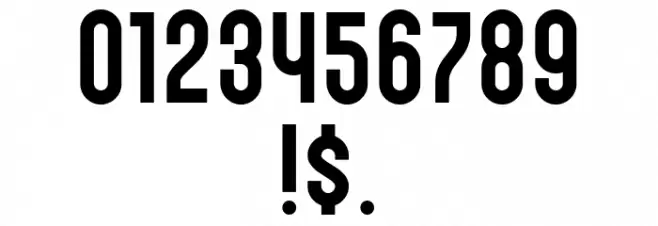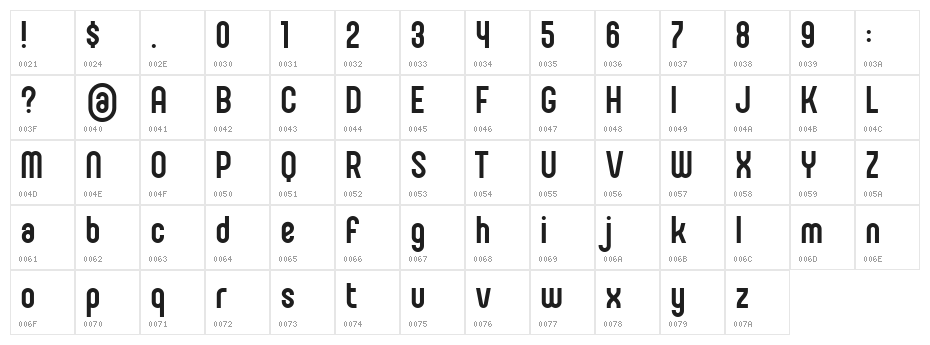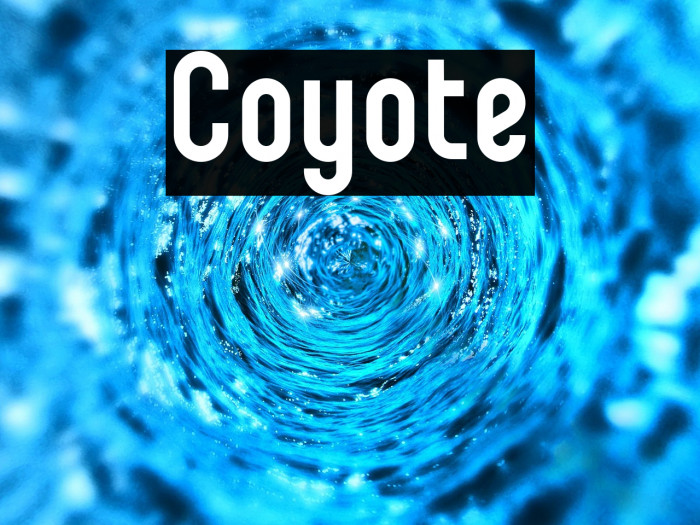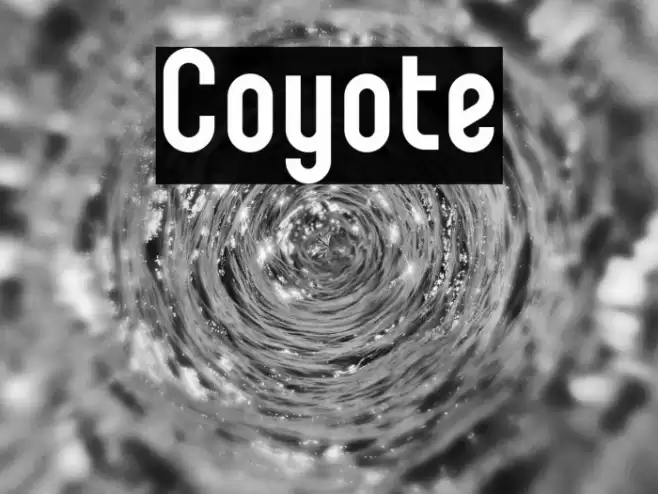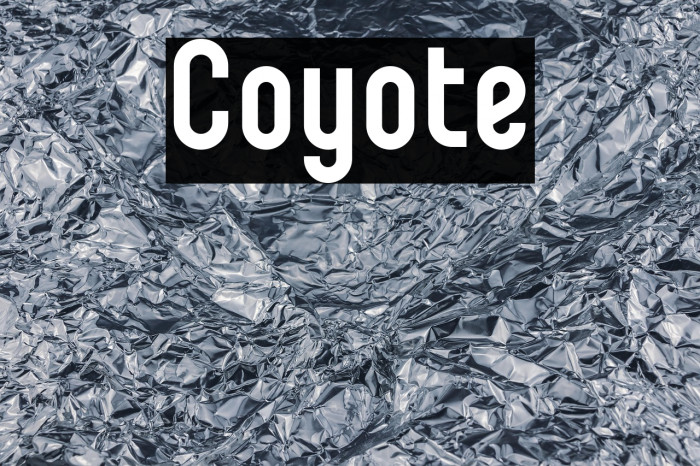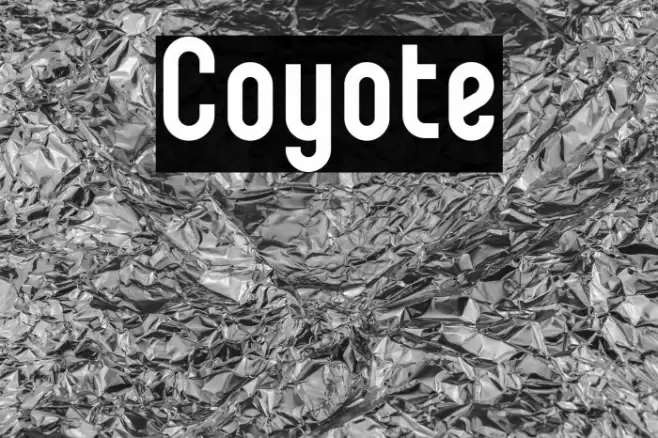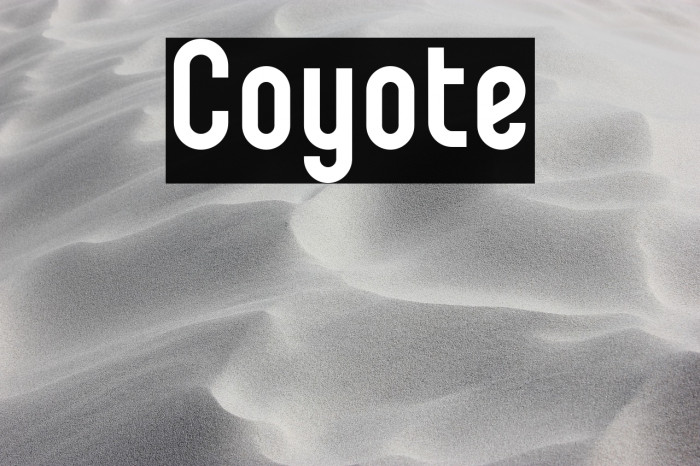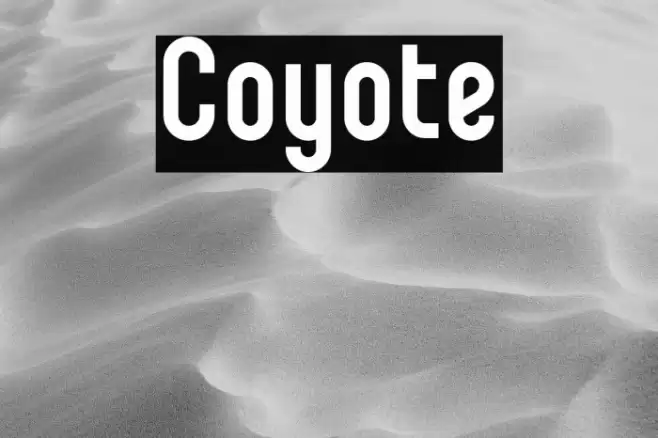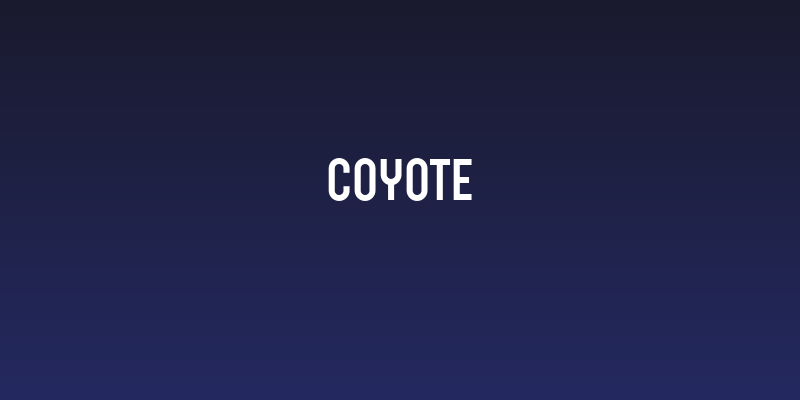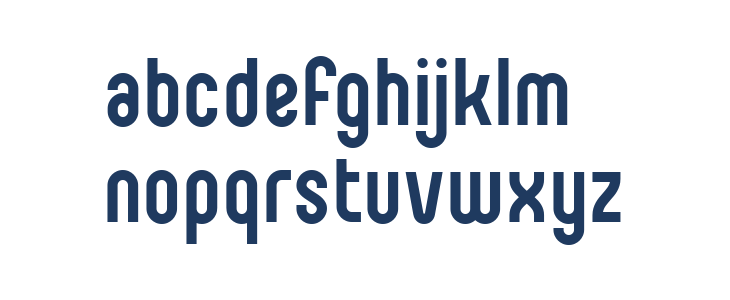
Coyote Font
Coyote Description
This font features a bold and modern design with rounded edges, giving it a friendly and approachable appearance. The characters are uniformly thick, providing a consistent and cohesive look across both uppercase and lowercase letters. The numerals and special characters maintain the same rounded style, ensuring a harmonious overall aesthetic. The font's geometric structure makes it highly legible, even at smaller sizes, while its boldness ensures it stands out in larger applications. The spacing between characters is balanced, contributing to its readability and versatility.
Proposed ProjectsIdeal for branding, headlines, posters, and digital media where a modern and approachable look is desired.